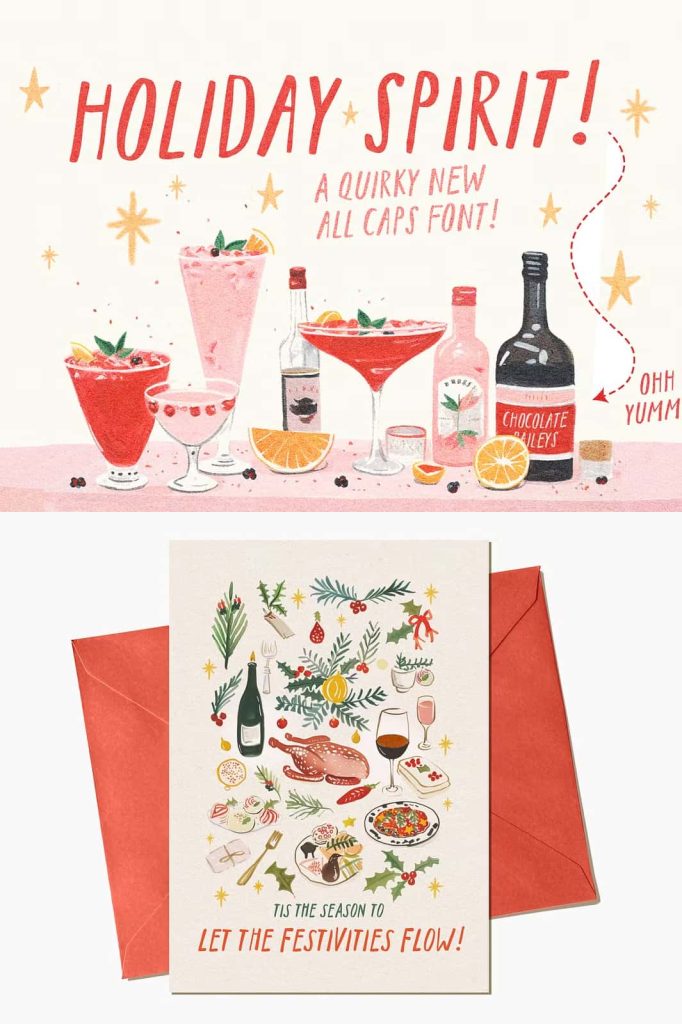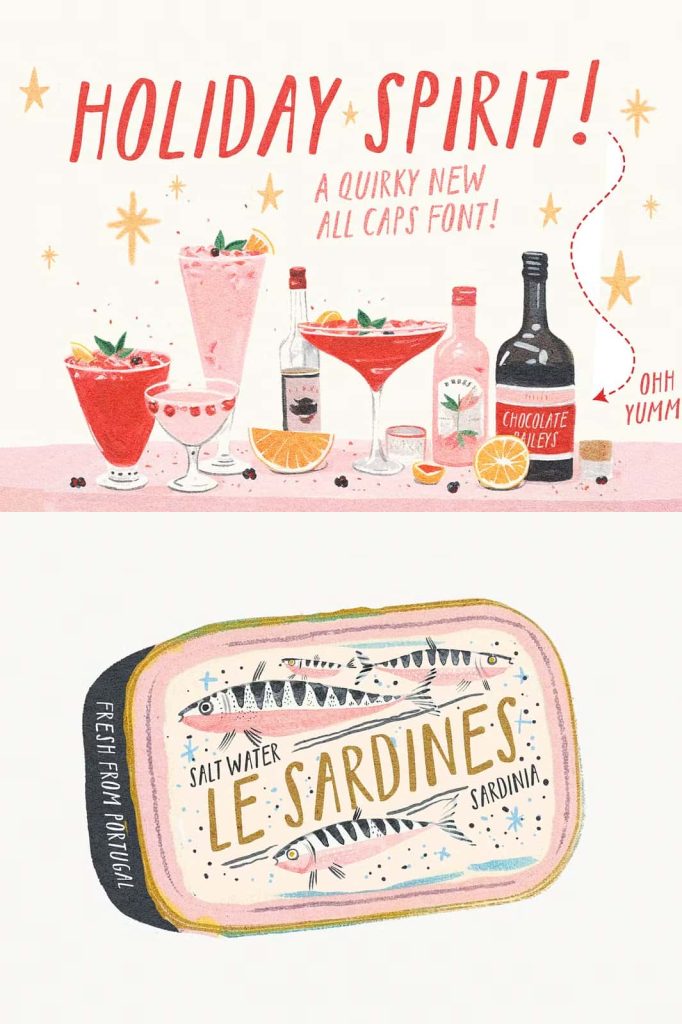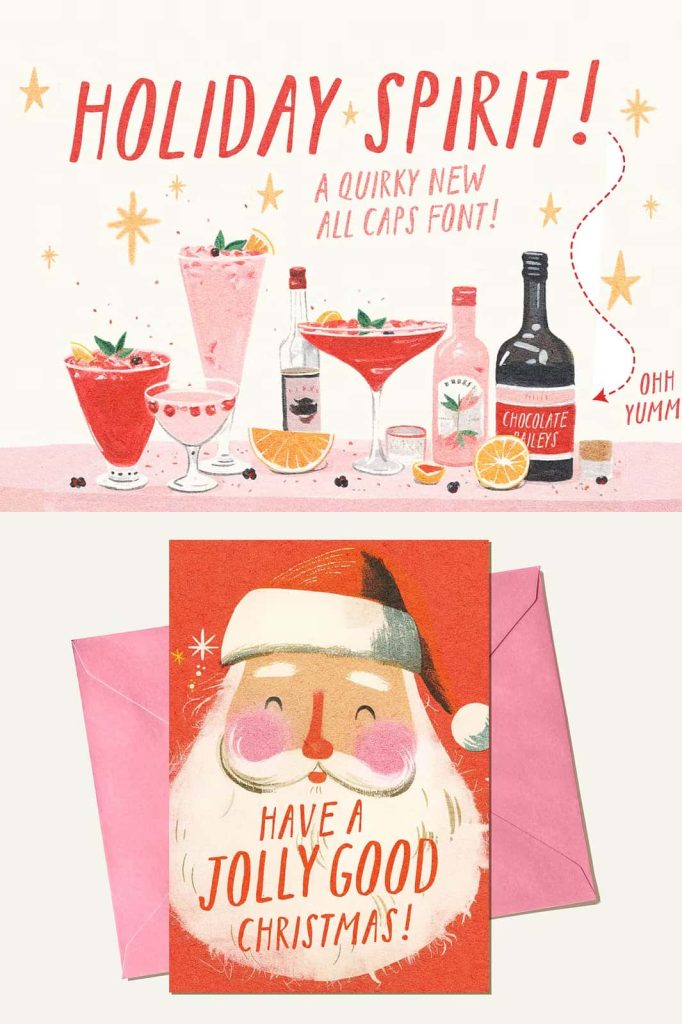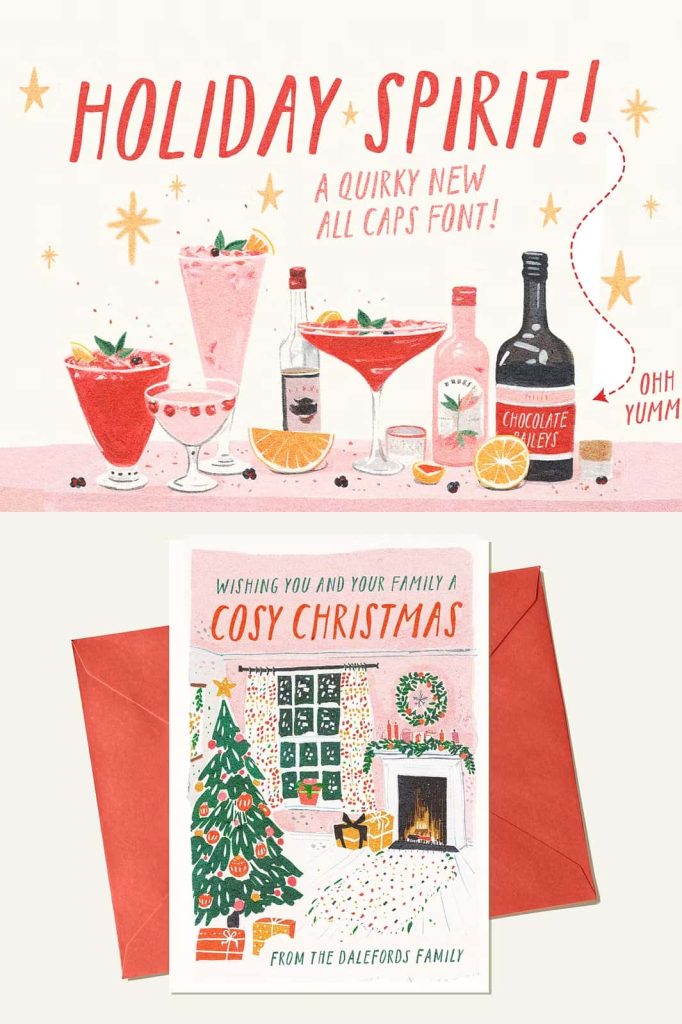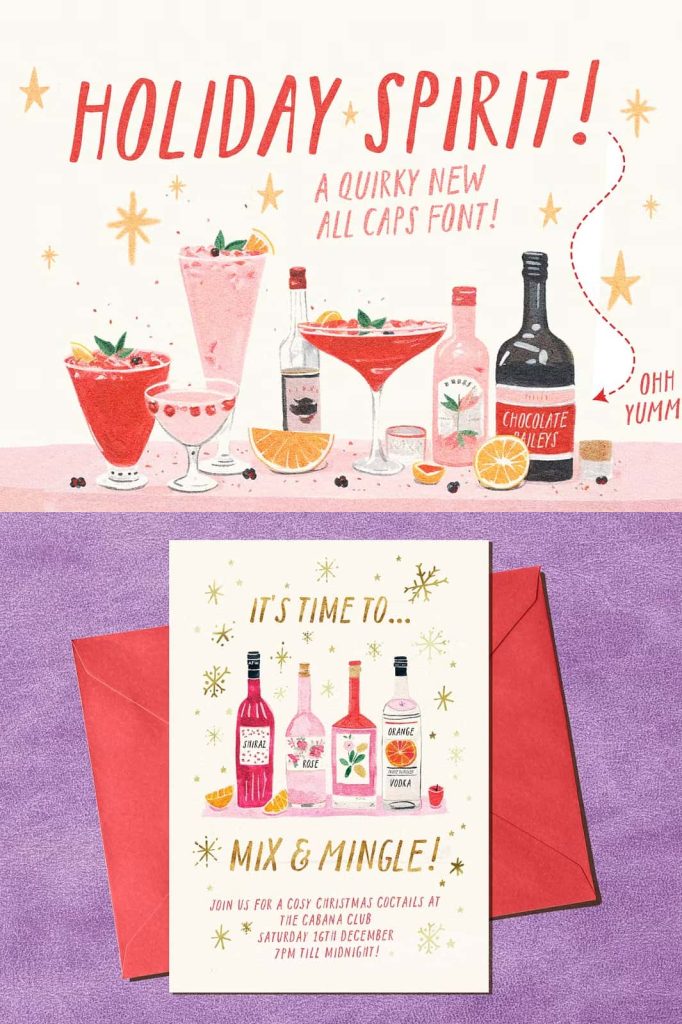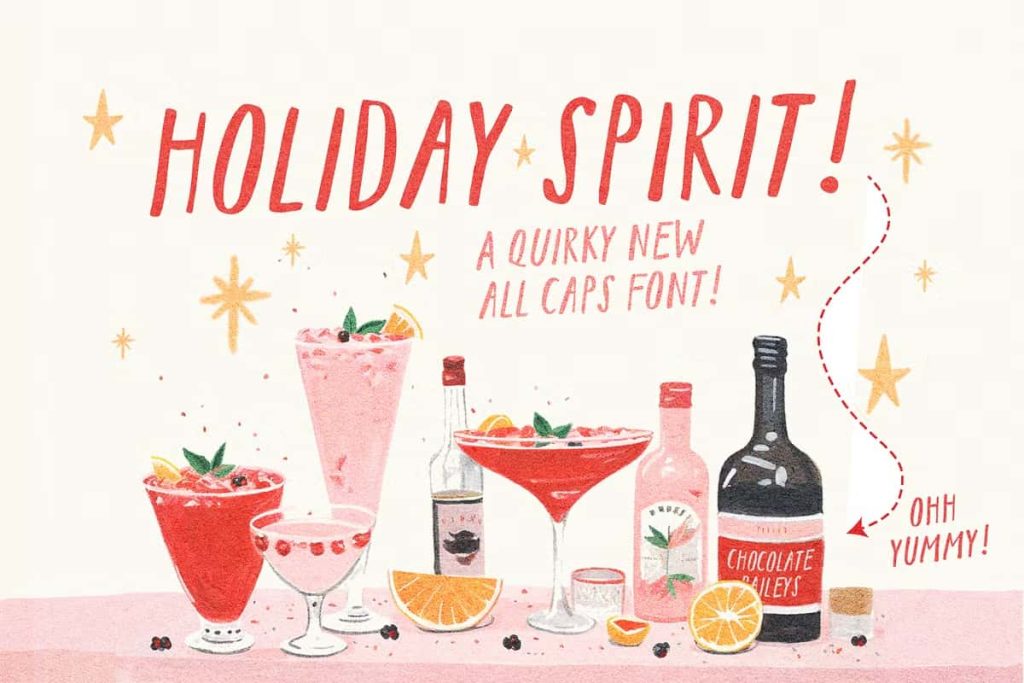
Holiday Spirit Casual Handwritten Display Font
A Handwritten Typeface That Refuses to Follow the Rules
Holiday Spirit is a bold and playful handwritten display font created for designers who want to break away from rigid typography conventions. This typeface embraces imperfection and spontaneity, delivering a visual style that feels expressive, energetic, and refreshingly human. Instead of clean lines and strict alignment, Holiday Spirit celebrates irregular strokes, uneven spacing, and natural movement.
Designed with personality at its core, Holiday Spirit actively rejects the idea of neat and tidy typography. Every letter carries a sense of freedom and creativity, making the font ideal for designs that demand a casual and cheeky tone. It communicates emotion instantly, helping designers create work that feels approachable, fun, and full of character.
A Cheeky and Casual Handwritten Style
Holiday Spirit delivers a casual handwritten look that feels spontaneous and expressive. The letterforms appear as though they were written quickly and confidently, capturing the energy of handwritten notes, doodles, and playful messages. This casual approach gives the font a friendly and relaxed voice that resonates with modern audiences.
The imperfect structure of Holiday Spirit allows it to stand out in a world of overly polished fonts. Its playful inconsistencies add charm and authenticity, making designs feel less corporate and more personal. This cheeky personality makes the font especially effective for brands and creatives who want to appear bold, informal, and relatable.
Designed to Feel Fun, Free, and Unpolished
Holiday Spirit was intentionally designed to feel unpolished and free-flowing. The irregular baseline and varied stroke widths contribute to its lively appearance. These characteristics help designers communicate creativity and individuality without relying on decorative elements or complex layouts.
This sense of freedom makes Holiday Spirit an excellent choice for projects that aim to feel lighthearted and expressive. It supports visual storytelling by adding energy and motion to text, allowing messages to feel alive and engaging.
Perfect for Informal Branding and Creative Projects
Holiday Spirit works exceptionally well in informal branding and creative design projects. When used in logos, it instantly communicates a relaxed and playful brand identity. The font helps brands stand out by projecting confidence, humor, and authenticity, making it ideal for startups, creative studios, and lifestyle brands.
In addition to branding, Holiday Spirit excels in posters, social media graphics, packaging, and promotional materials. Its bold handwritten appearance draws attention quickly, making it suitable for headlines, slogans, and short statements. The font encourages creativity and experimentation, allowing designers to push visual boundaries.
Ideal for Headlines, Posters, and Social Media
As a display handwritten font, Holiday Spirit performs best in large sizes where its expressive details can shine. It adds instant impact to headlines and posters, making messages feel energetic and approachable. The font also adapts well to social media content, where bold and casual typography helps capture attention in fast-scrolling environments.
Holiday Spirit pairs effectively with clean sans serif fonts, creating a balanced contrast between structure and spontaneity. This combination allows designers to maintain readability while highlighting playful elements within the layout.
A Versatile Handwritten Font with Strong Personality
Holiday Spirit offers designers a versatile casual handwritten display font that brings personality to a wide range of creative projects. Its rebellious nature encourages designers to step away from traditional layouts and embrace expressive typography. Whether used for digital content or print materials, the font consistently delivers character and visual interest.
By choosing Holiday Spirit, designers gain a typeface that values creativity over perfection. It transforms ordinary text into expressive design elements that feel bold, fun, and unapologetically casual. Holiday Spirit empowers designers to create typography that feels free, cheeky, and full of life, making every project more engaging and memorable.